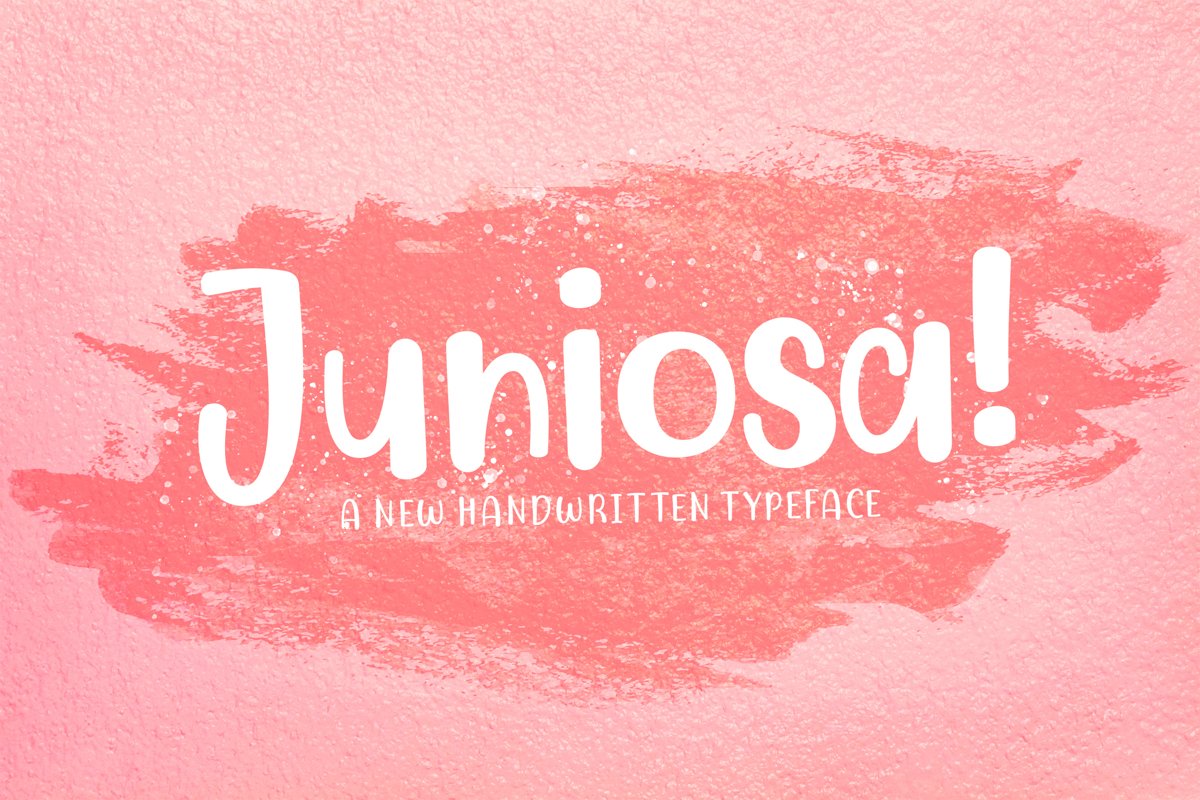
Juniosa is a handwritten typeface. Perfect for display, poster, quotes, crafting needs, florist needs, wedding needs, business card, signature, packaging, merchandise, branding, logo, logotype, header, tittle, and many more.